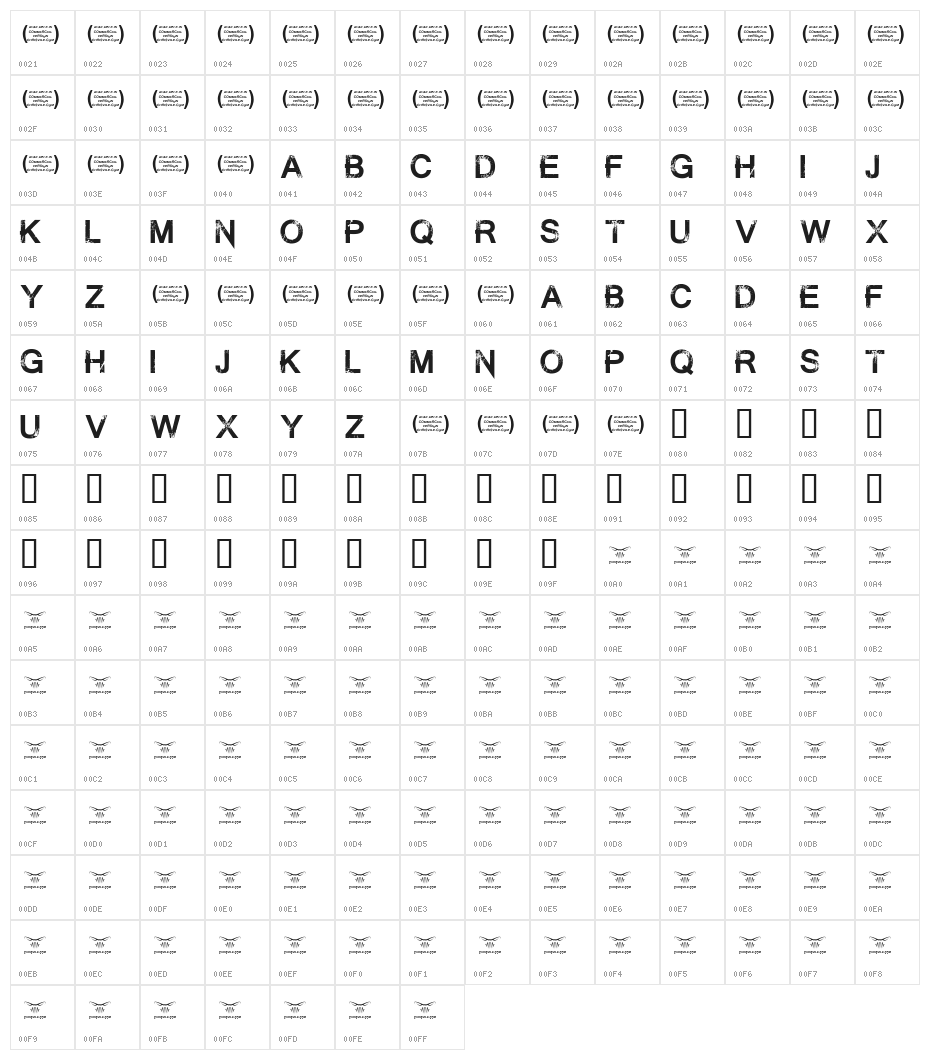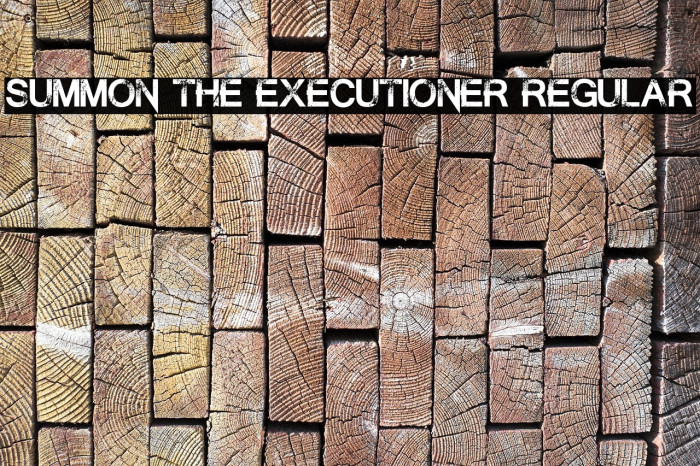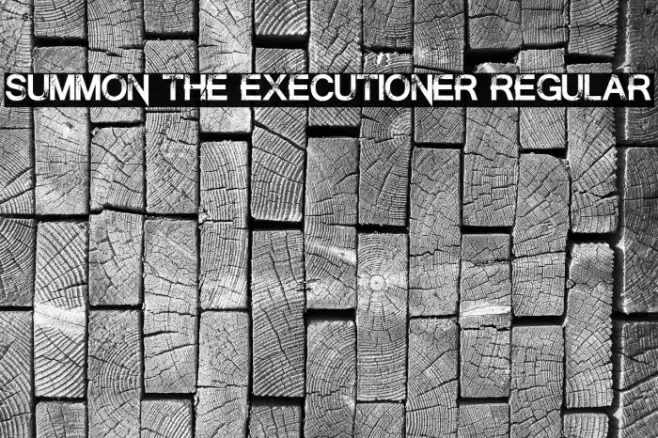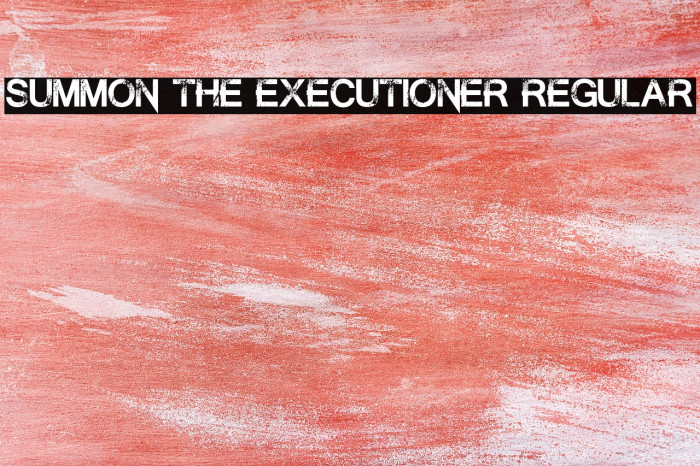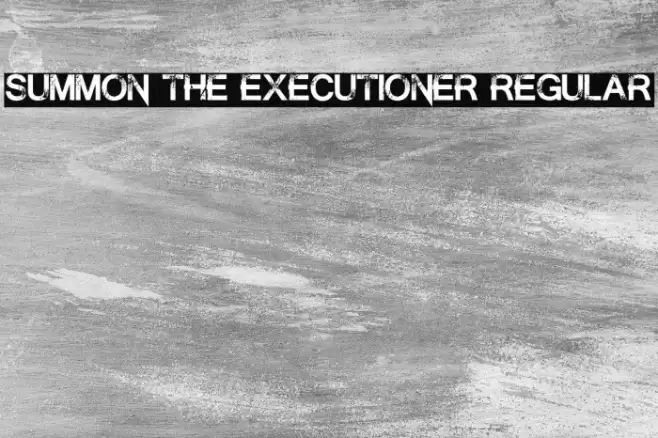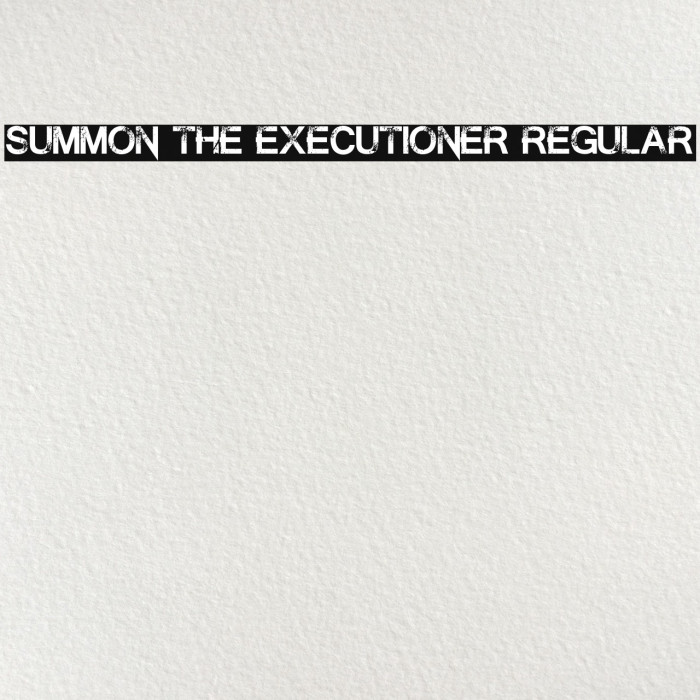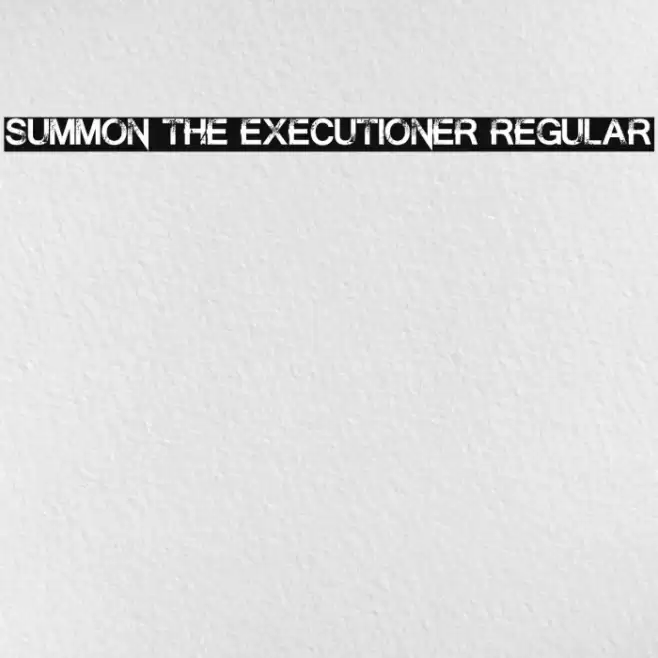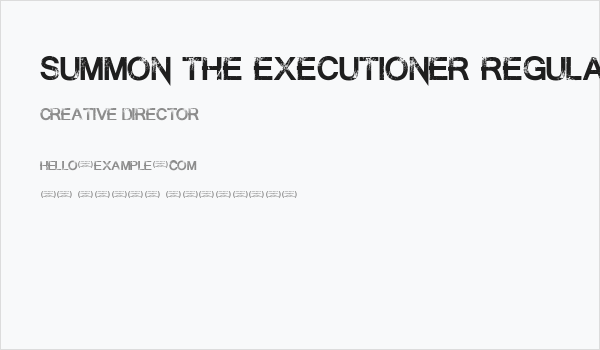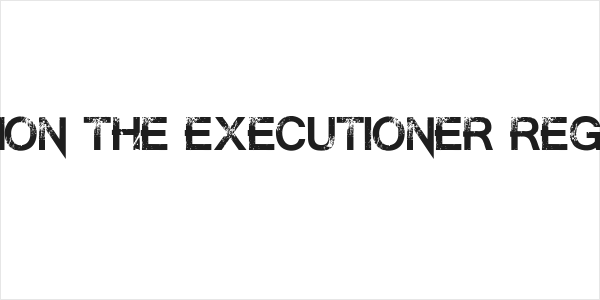
Summon the Executioner Regular Font
Summon the Executioner Regular Description
This font features a bold, distressed style with a gritty texture that gives it a rugged, worn appearance. The uppercase letters are uniform in height, with a consistent width that maintains readability despite the distressed effect. The characters have a modern, industrial feel, making them suitable for projects that require a bold statement. The texture adds a layer of depth and interest, making it ideal for designs that aim to capture attention. The font's unique style is perfect for creating impactful headlines, posters, and branding materials that need a touch of edginess.
| Overall Style | Modern, Industrial |
| Proposed Projects | Ideal for posters, branding, album covers, and edgy graphic designs. |